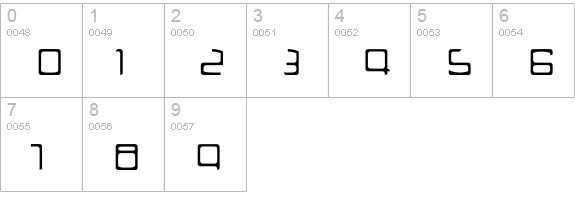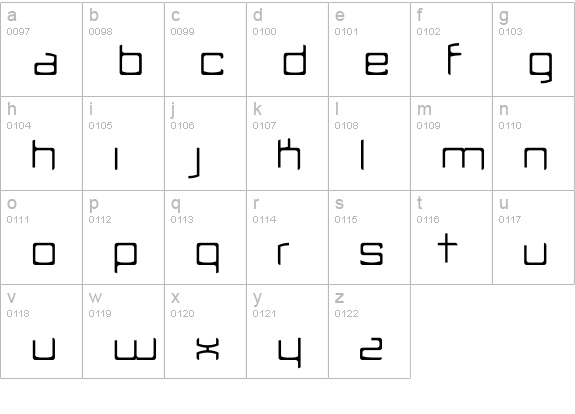
Utensil Font Details
Utensil font is a modern and stylish typeface that combines elegance with a touch of playfulness. Its sleek and clean lines make it perfect for a wide range of design projects, from branding and packaging to editorial and web design. This versatile font features a balanced mix of sharp angles and rounded curves, creating a harmonious and visually appealing aesthetic. With its unique and eye-catching letterforms, Utensil font effortlessly catches the viewer's attention and adds a contemporary flair to any design. What sets Utensil font apart is that it is not only visually stunning but also free. Yes, you read that right! Utensil font is freely available to download at FontsMarket.com. This means that you can easily incorporate this stunning typeface into your projects without breaking the bank. Whether you're a professional designer or a hobbyist, Utensil font offers you the opportunity to elevate your creations with a high-quality and distinctive font, without the need to spend a fortune. Its versatility and accessibility make it a go-to choice for anyone looking to add a touch of sophistication to their designs. So why wait? Download Utensil font today and unlock its creative potential. Whether you're designing a logo, crafting a website, or creating captivating advertisements, this font will undoubtedly make your work stand out from the crowd. Don't miss out on the opportunity to enhance your designs with this stunning and free font.